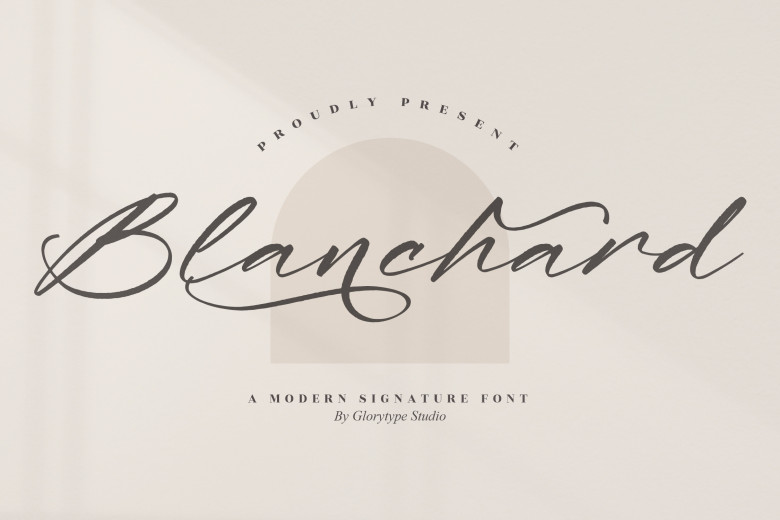
Blanchard Font
Blanchard Modern Signature Font from Glorytype Studio can be used in virtually every creative project imaginable, including logos, branding design, homeware packaging for products, mugs posters quotes bags for shopping t-shirts book covers name cards greeting cards invitation cards labels photographs watermarks occasions special events etc.
Blanchard Handwritten Script Font